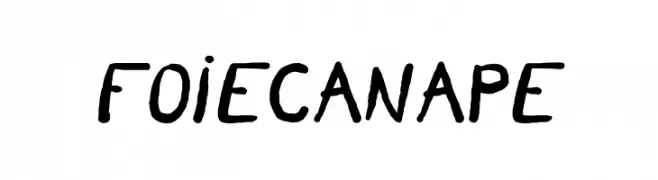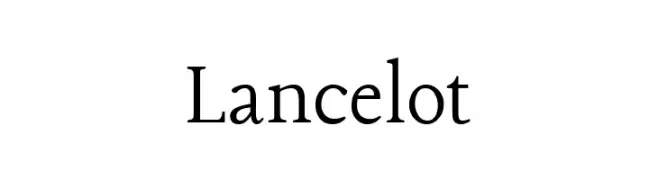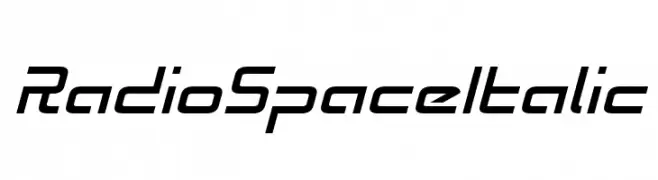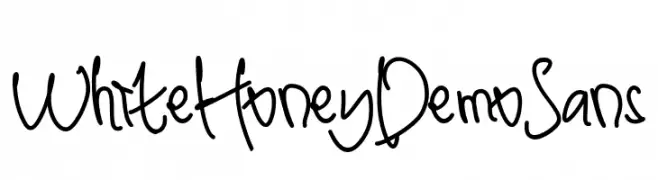
A playful, casual handwritten font with fluid, organic strokes.
A playful, bold handwritten font with rounded strokes and a casual feel.
A bold, playful handwritten font with rounded, organic characters.
A modern, rounded sans-serif font with a friendly and approachable design.
A bold, handwritten font with playful, rounded characters.
A sleek, futuristic italic font with consistent stroke width and angular design.
A playful, hand-drawn font with a whimsical and informal style.
A bold, handwritten font with a playful and dynamic style.
A playful, informal handwritten font with a dynamic slant and organic feel.
A classic serif font with elegant, flowing lines and a medieval touch.